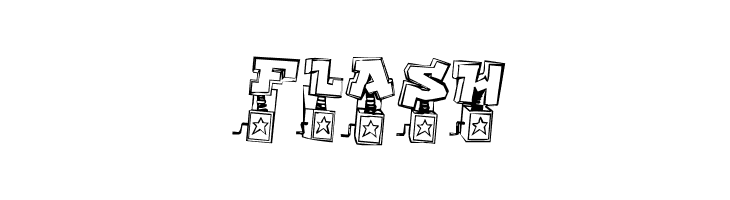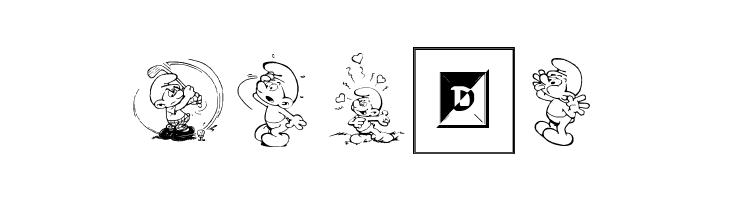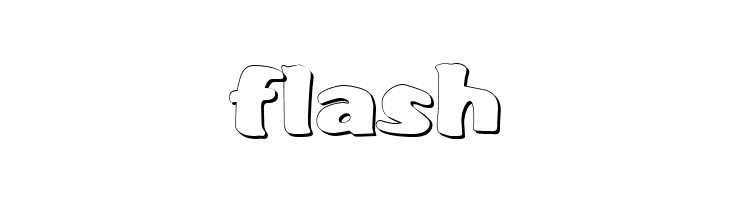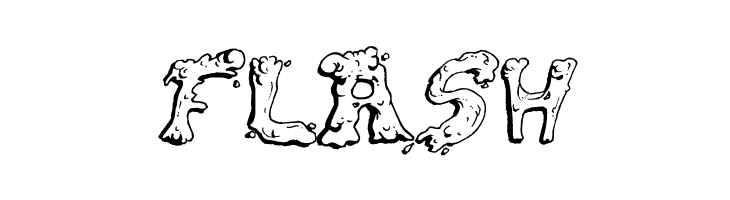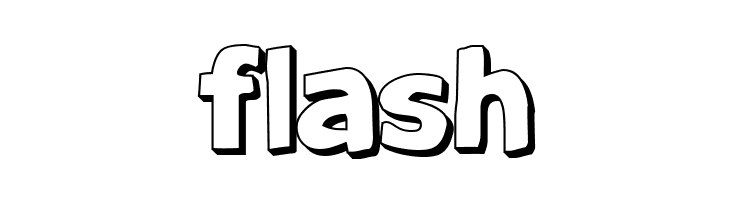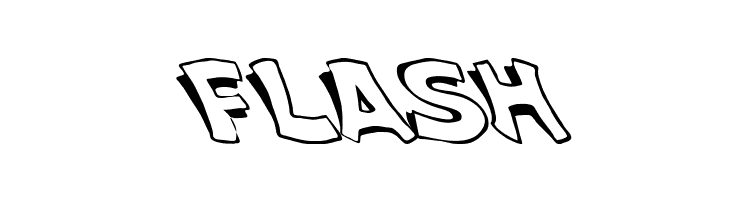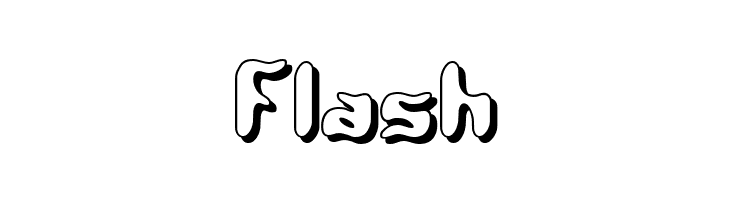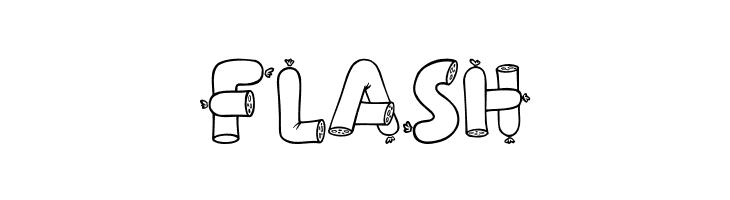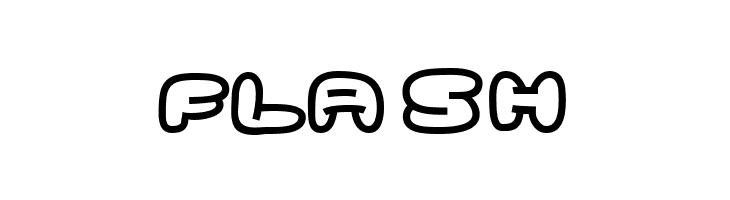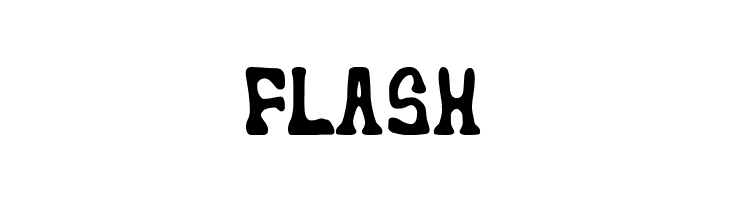
A bold, cartoonish font with thick outlines and a playful style.
A bold, playful font with rounded edges and a cartoonish style.
A bold, cartoonish font with dynamic, slanted characters and a playful style.
A playful, panda-themed decorative font with bold, cartoonish icons.
A bold, cartoonish font with a hand-drawn, stone-like appearance.
A bold, playful font with cartoonish eyes on each letter.
A playful, bold font with a unique shadow effect and cartoonish style.
A playful, sausage-themed decorative font with bold, cartoonish characters.
A playful and bold font with exaggerated, whimsical letterforms.
A playful, bold font with dotted patterns and thick outlines, ideal for fun projects.
A playful, hand-drawn font with a cartoonish and whimsical style.
A whimsical font featuring cartoonish character heads with playful expressions.
A bold, playful font with exaggerated strokes and a cartoonish style.
A bold, playful font with a 3D shaded effect, perfect for fun designs.
A bold, playful font with a double-outline and cartoonish style.
A playful, vampire-themed decorative font with bold, sans-serif letters encased in cartoonish vampire figures.
A playful, bold font with a bubble-like, three-dimensional appearance.
A playful, bold font with a shadow effect and whimsical, cartoonish style.
A playful, blob-like font with a whimsical and cartoonish style.